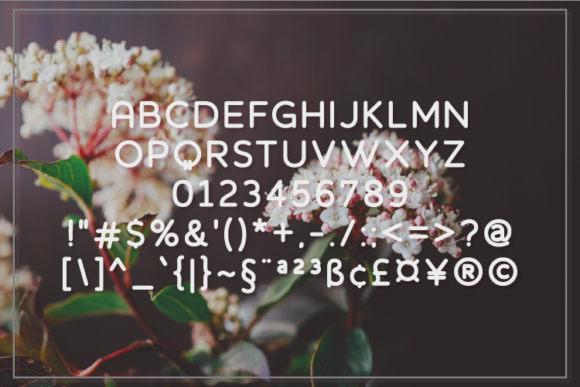
Introducing Elizable Font: The Ultimate Sans Serif for Modern Designs
Are you tired of using the same old fonts in your designs? Look no further than Elizable Font, a simple and casual sans serif font that’s taking the design world by storm. With its undeniably clean feel and beautiful arrangement of letters, Elizable is the perfect choice for both formal and non-formal designs.
What Makes Elizable Font So Special?
Elizable Font is a game-changer for designers and crafters alike. Its neat and organized structure makes it easy to read and understand, while its clean lines and minimalist aesthetic give it a modern and fresh feel. Whether you’re working on a logo, brochure, or website, Elizable Font is sure to make your design stand out from the crowd.
Key Features of Elizable Font
- Simple and Casual: Elizable Font has a relaxed and approachable vibe that’s perfect for designs that need to feel friendly and approachable.
- Sans Serif: The font’s sans serif design makes it easy to read and understand, even at small sizes.
- Clean Feel: Elizable Font’s clean lines and minimalist aesthetic give it a modern and fresh feel that’s perfect for designs that need to feel contemporary.
- Neat and Beautiful Arrangement: The font’s letters are carefully arranged to create a beautiful and harmonious visual flow.
Why Choose Elizable Font?
So why choose Elizable Font over other fonts on the market? Here are just a few reasons:
- Versatility: Elizable Font is perfect for both formal and non-formal designs, making it a versatile addition to any designer’s toolkit.
- Readability: The font’s clean lines and simple design make it easy to read and understand, even at small sizes.
- Uniqueness: Elizable Font has a unique and distinctive feel that sets it apart from other sans serif fonts.
How to Use Elizable Font in Your Designs
Elizable Font is easy to use and can be incorporated into a wide range of designs. Here are a few ideas to get you started:
- Logos: Use Elizable Font to create a modern and memorable logo for your brand.
- Brochures: Add a touch of elegance and sophistication to your brochures with Elizable Font.
- Websites: Use Elizable Font to create a clean and modern website that’s easy to read and navigate.
- Social Media Graphics: Add a pop of personality to your social media graphics with Elizable Font.
Tips and Tricks for Getting the Most Out of Elizable Font
Here are a few tips and tricks to help you get the most out of Elizable Font:
- Experiment with Different Sizes: Elizable Font looks great at a wide range of sizes, so don’t be afraid to experiment and find the perfect size for your design.
- Pair with Other Fonts: Elizable Font pairs well with a wide range of other fonts, so try combining it with other fonts to create a unique and interesting visual effect.
- Use it for Headings and Body Text: Elizable Font is perfect for both headings and body text, making it a versatile addition to any design.
In conclusion, Elizable Font is a simple and casual sans serif font that’s perfect for modern designs. With its clean feel, beautiful arrangement of letters, and versatility, it’s a must-have for any designer or crafter looking to add a touch of elegance and sophistication to their designs. So why wait? Download Elizable Font today and start creating stunning designs that will leave a lasting impression!